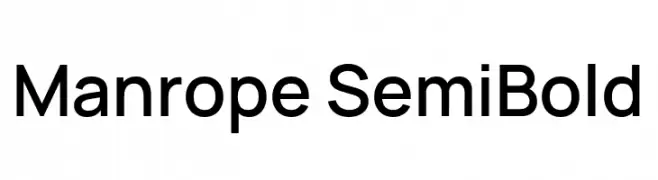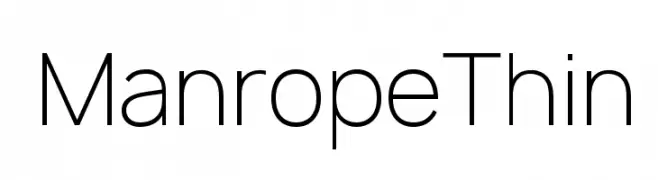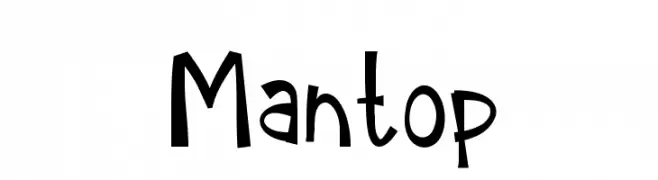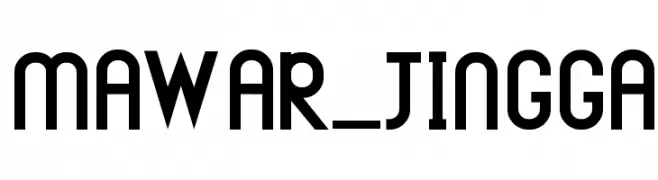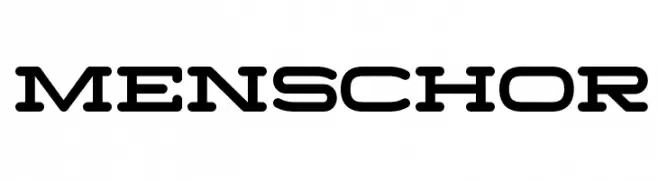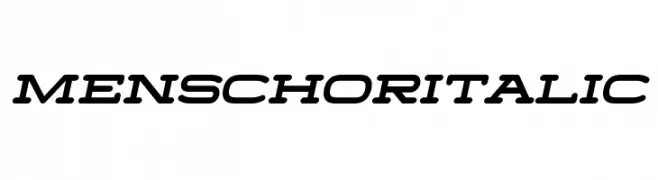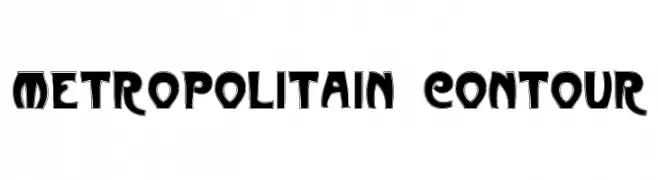
A modern, clean sans-serif font with balanced geometric and humanist elements.
A modern, thin sans-serif font with a clean and minimalist design.
A playful, hand-drawn font with bold, irregular characters and a whimsical style.
A bold, modern sans-serif font with a geometric and structured design.
A bold, geometric font with a modern yet retro feel.
A modern, bold italic font with geometric influences and rounded edges.
A bold serif font with strong, thick strokes and classic design elements.
A bold, italic serif font with high contrast and elegant style.
A bold, contour-styled font with a modern, decorative flair.
A bold, expressive handwritten font with dynamic strokes.